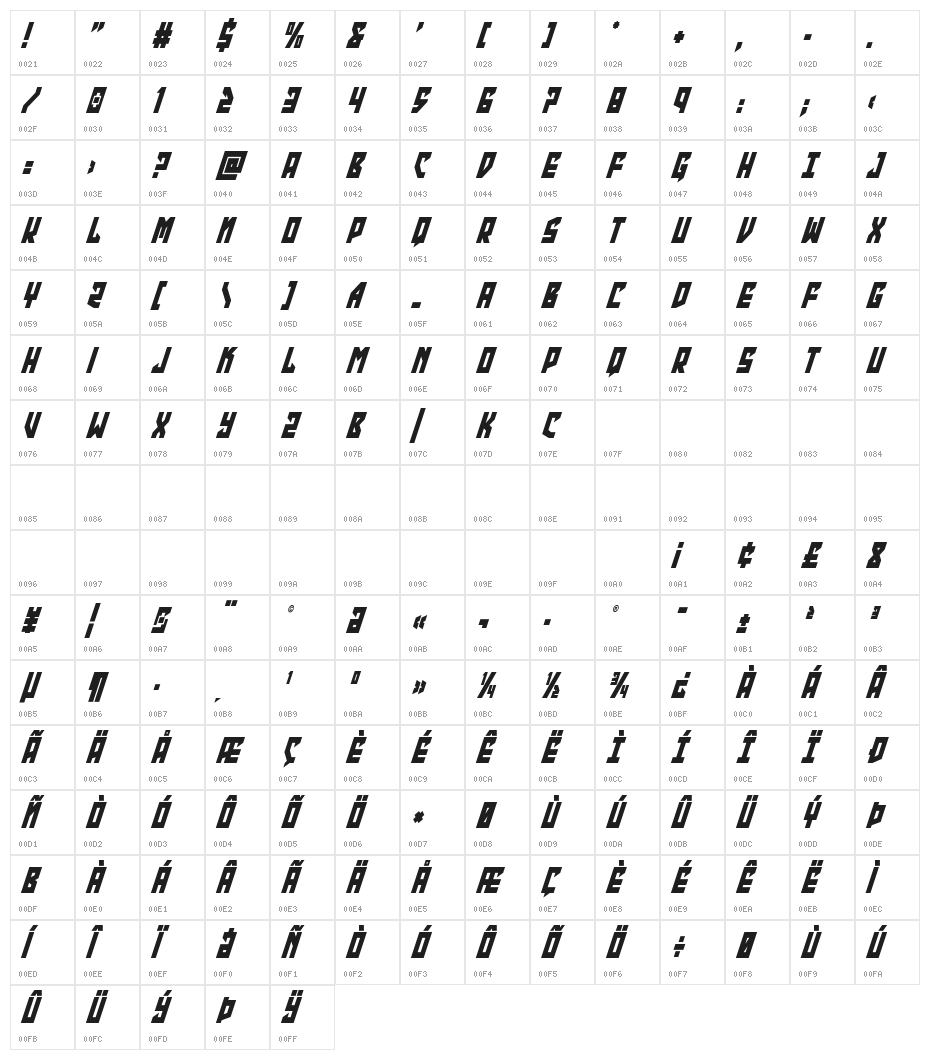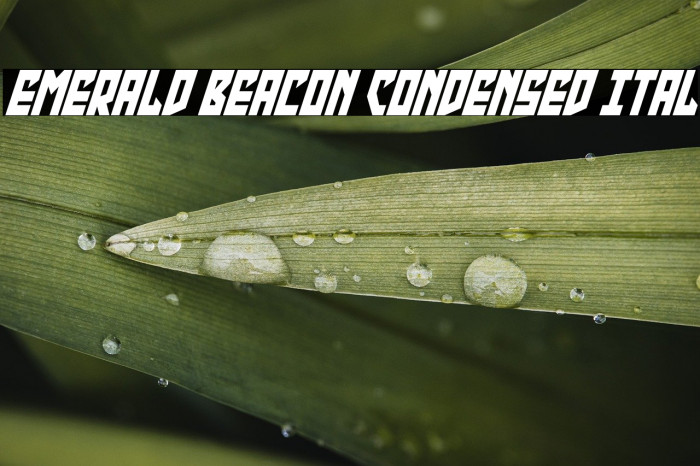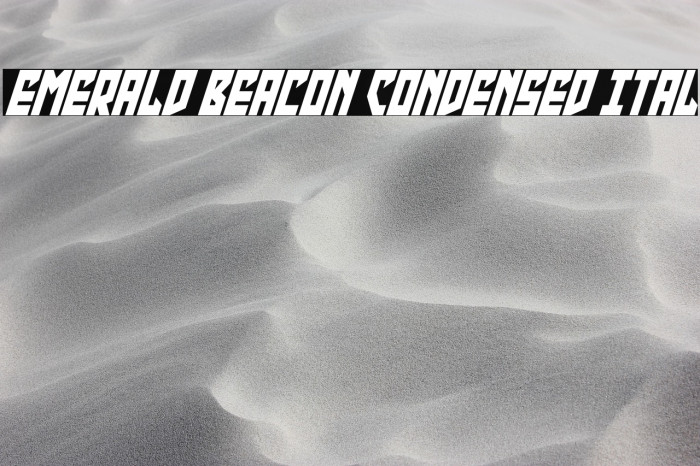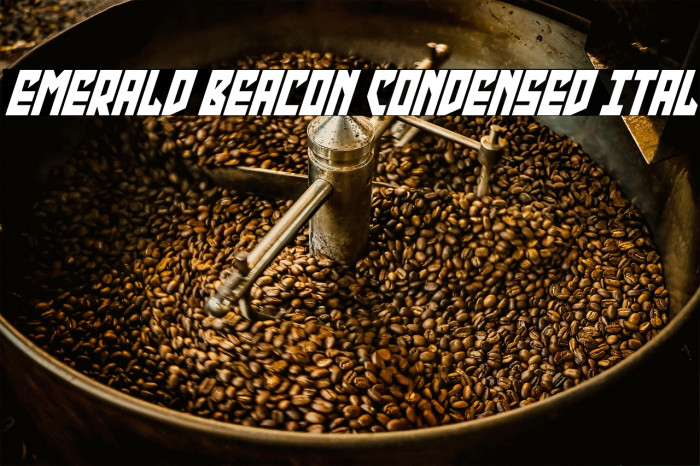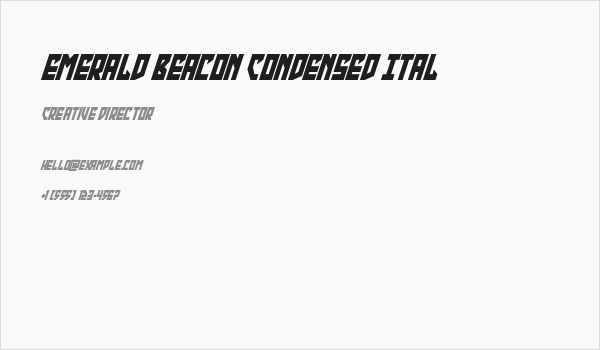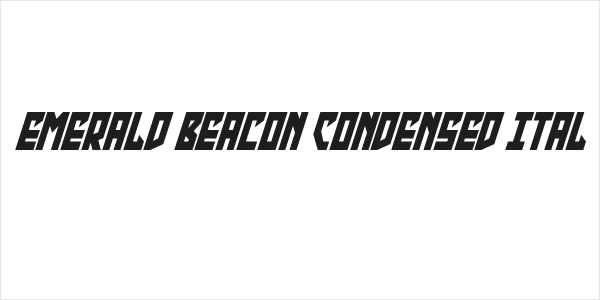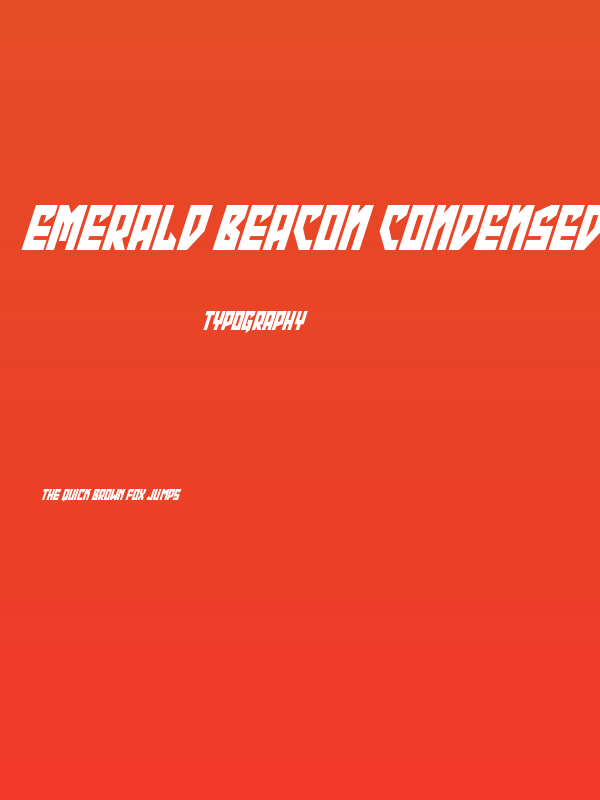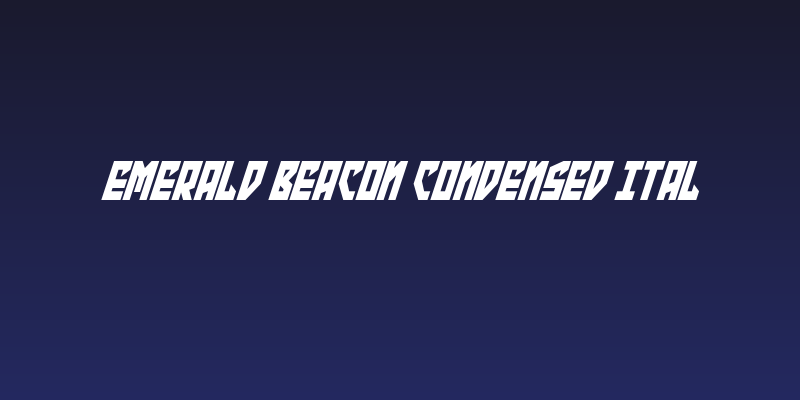
Emerald Beacon Condensed Ital Font
Emerald Beacon Condensed Ital Description
This font features a bold, angular design with a strong geometric influence. The characters are sharply cut, giving a sense of movement and energy. The condensed style allows for tight spacing, making it ideal for impactful headlines or titles. The italic slant enhances its dynamic appearance, adding a sense of urgency or speed. The high contrast between thick and thin strokes emphasizes its boldness, while the unique shapes of the letters provide a modern and edgy feel. The font includes a full set of uppercase and lowercase letters, numbers, and a variety of special characters, making it versatile for various design needs.
Proposed ProjectsIdeal for sports branding, action movie posters, dynamic advertisements, and edgy graphic design projects.